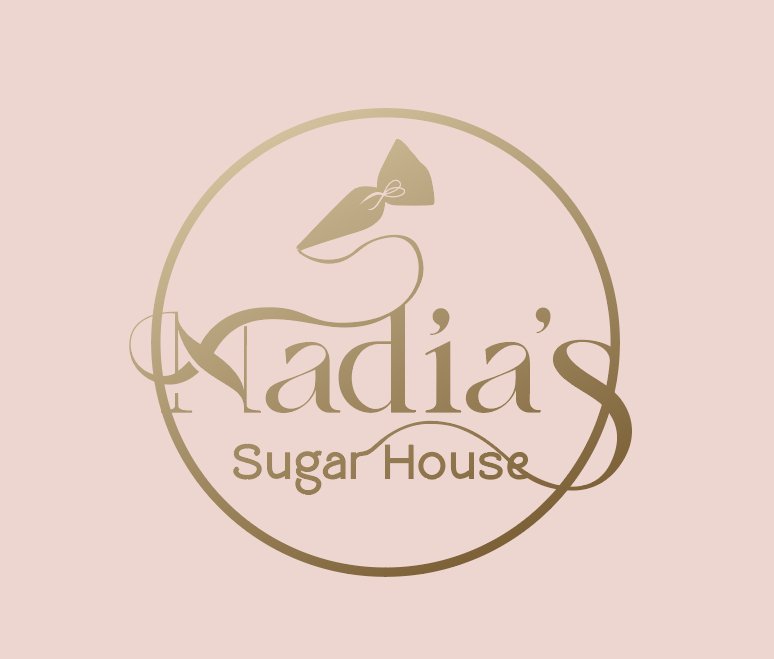
Introducing Shalomita, a modern ligature serif font with elegant style. It's an easy way & perfect choice to make your design projects; logo, branding, invitation, social media ads & website have classy looks, just type and add this font....ta daaa! you will be surprise with the result.
Fun to do! this font powered with ligatures that automatically change some of your characters into new form if they type together, magic! It also came with alternate characters to make everything more blended.